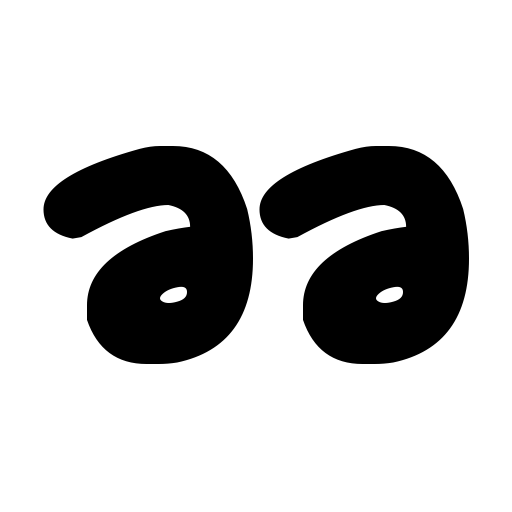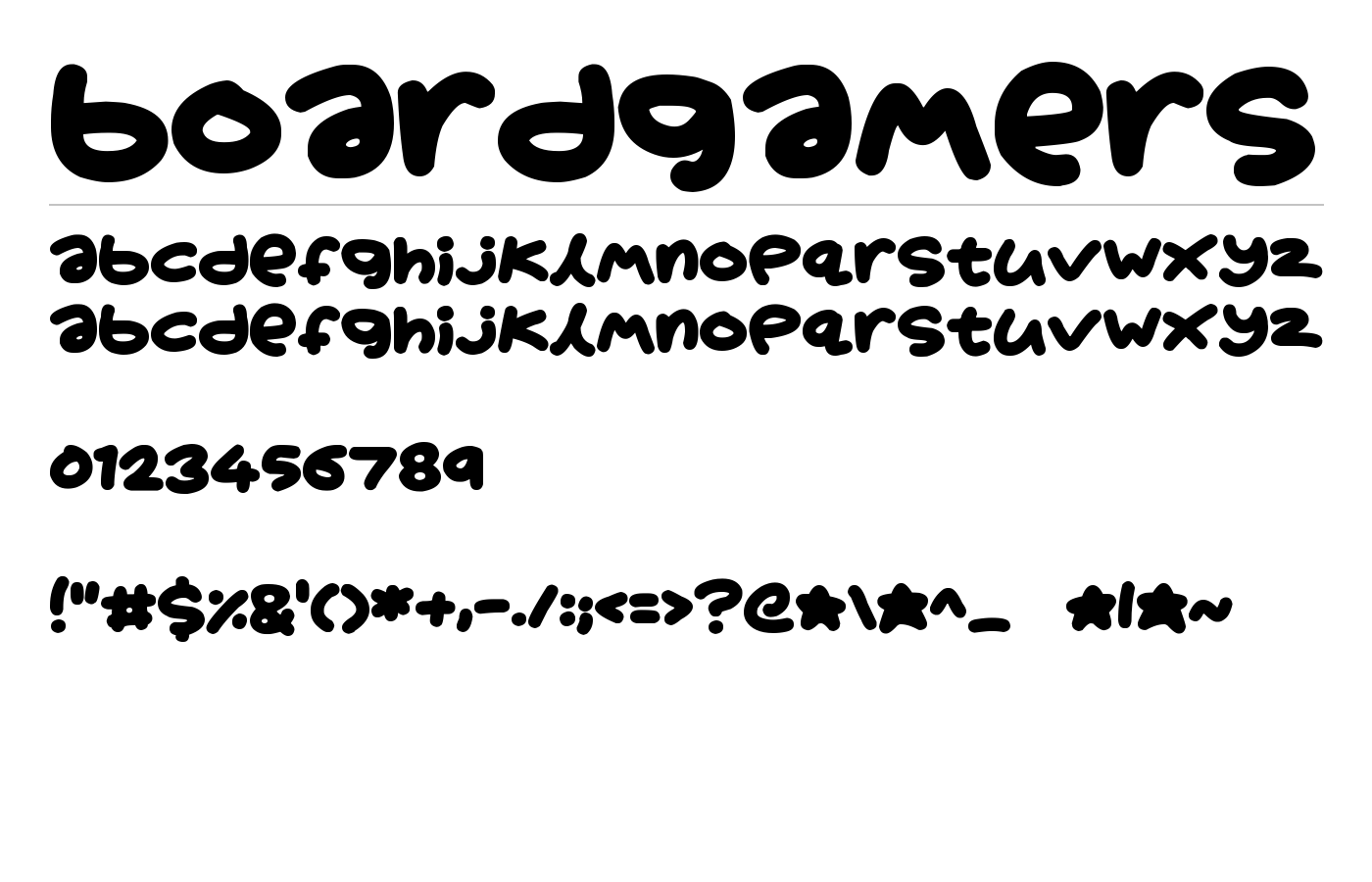
Boardgamers Font is a lively, bold sans serif typeface with rounded, playful letterforms that evoke a friendly and informal vibe. Its chunky strokes and slightly irregular shapes give it a hand-crafted, fun feel, making it ideal for projects aimed at children, games, or casual, creative brands. This font works wonderfully for headlines, logos, and packaging where a whimsical and approachable aesthetic is desired.
Boardgamers Font